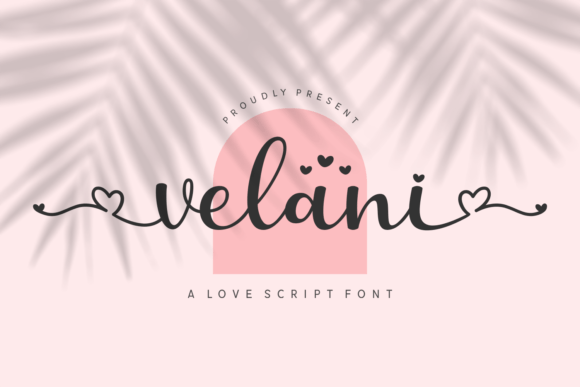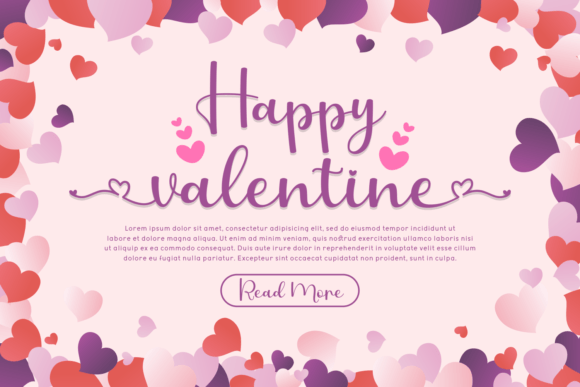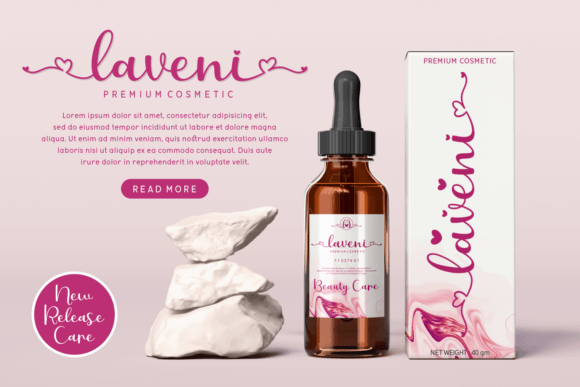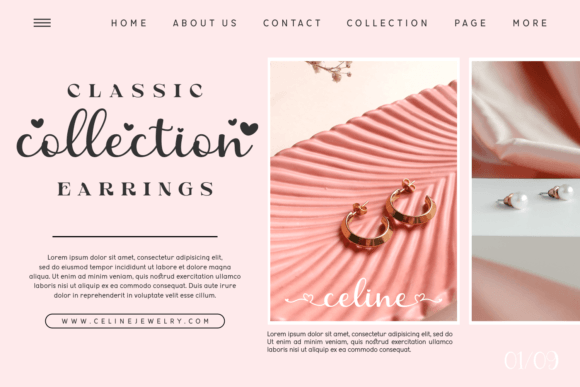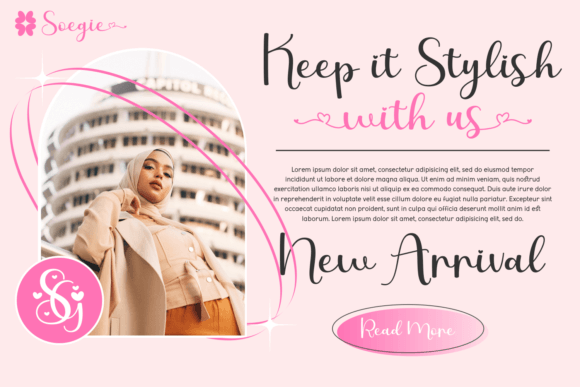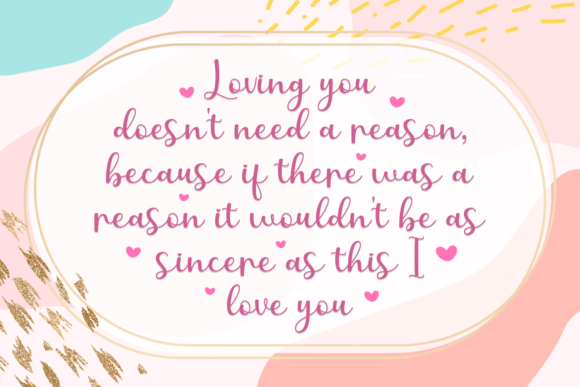
Velani
About Velani
Velani is a font with connecting hearts that is great for initials and display projects like magazines and crafts. This font includes a cute heart with each character—awesome for personalized holiday decorations. The font includes many heart illustrations, so you have a wide variety to choose from.